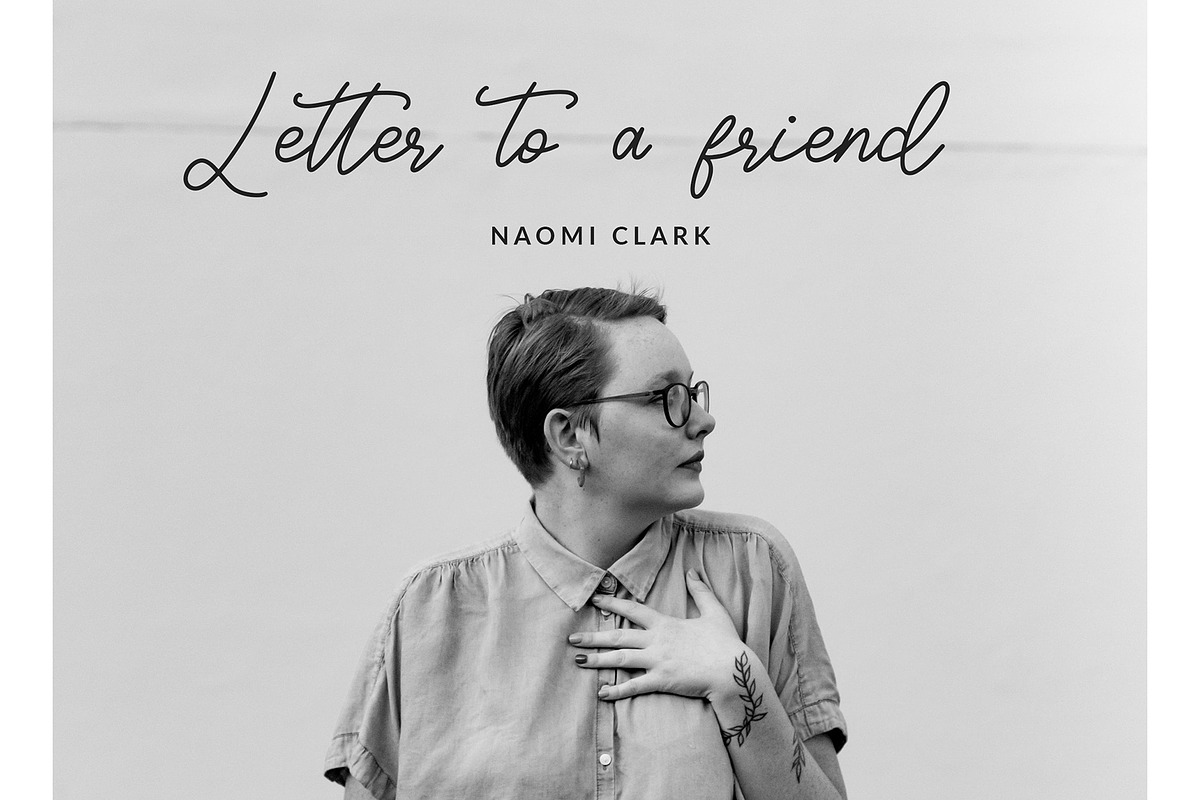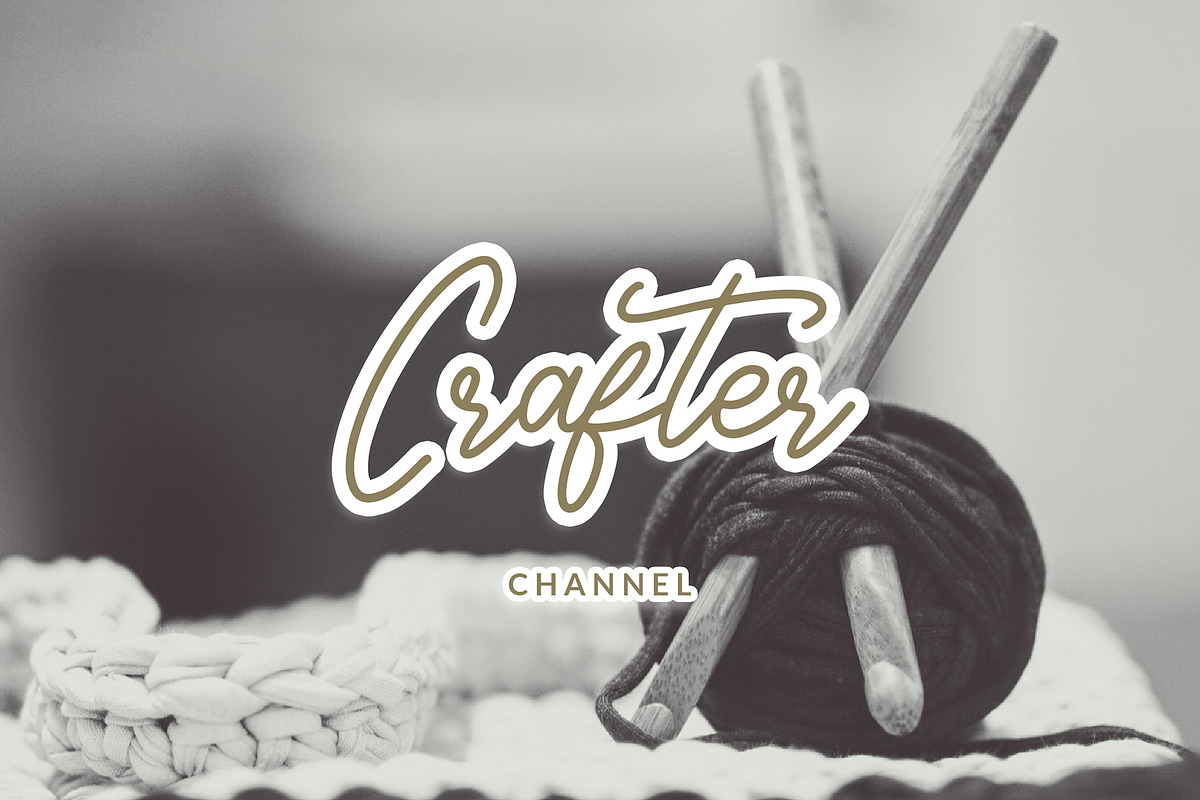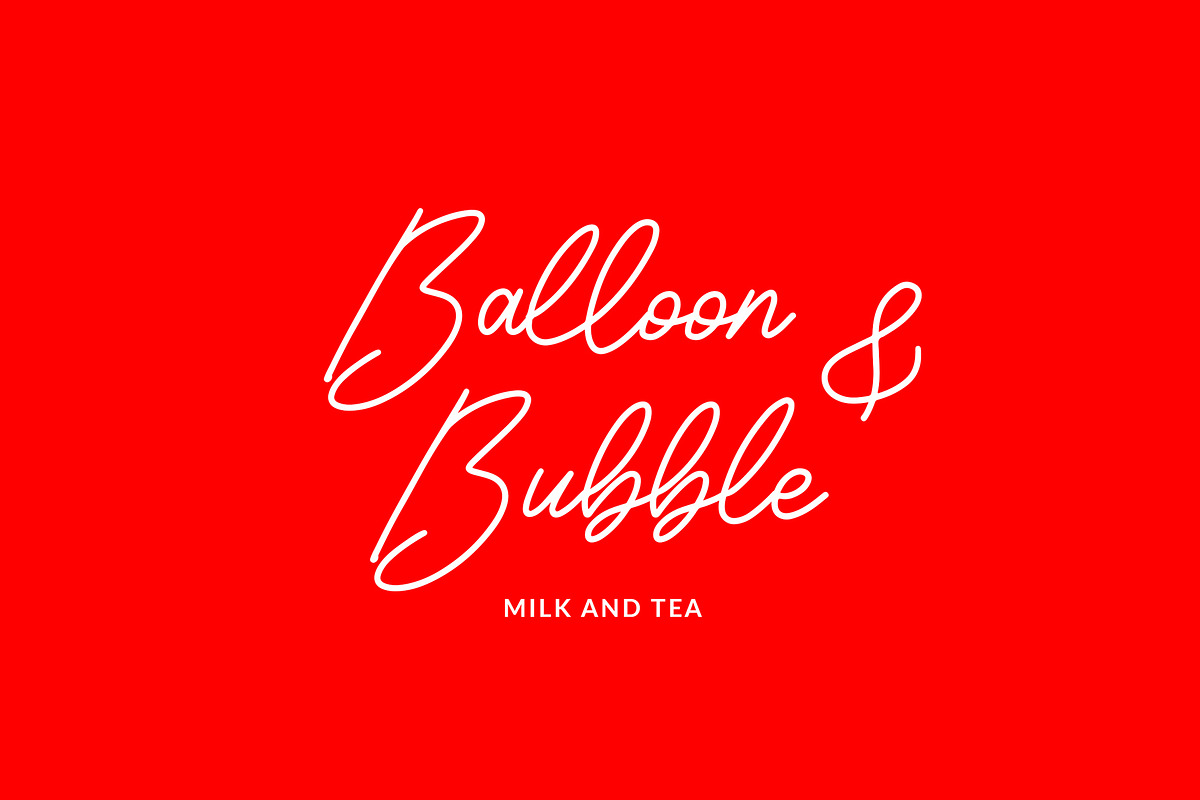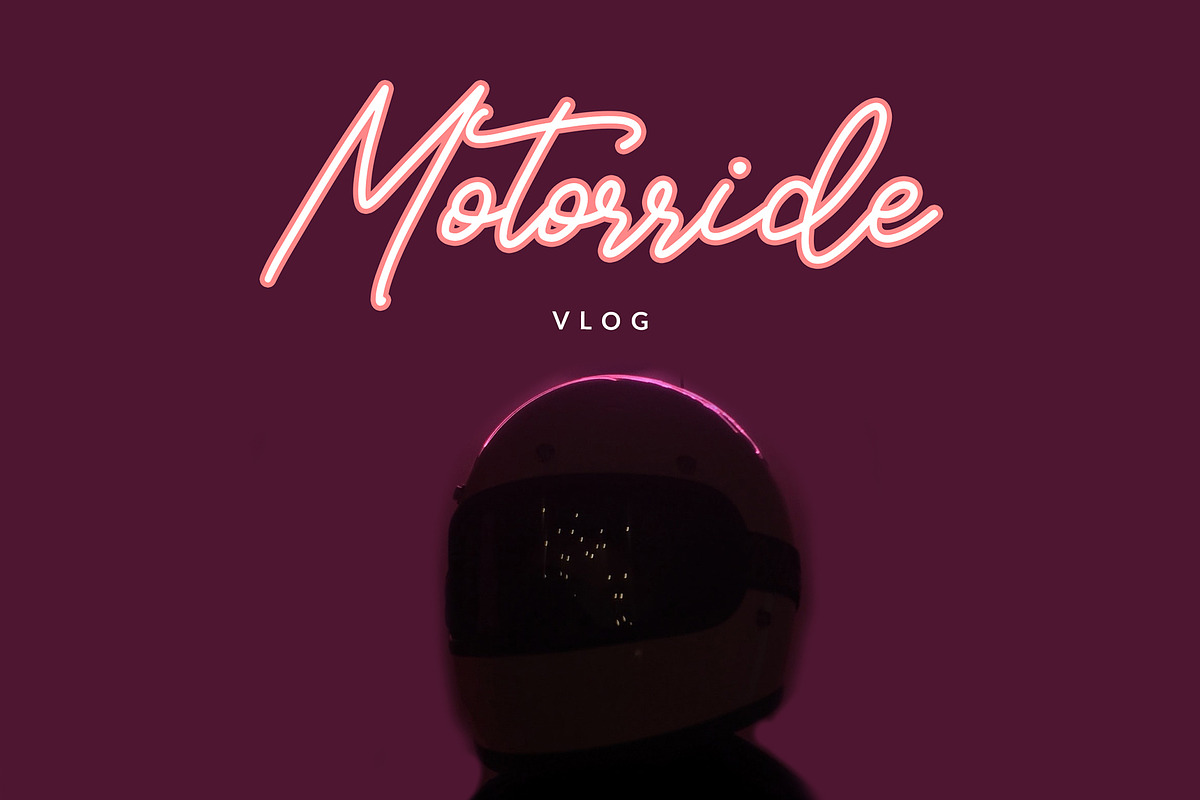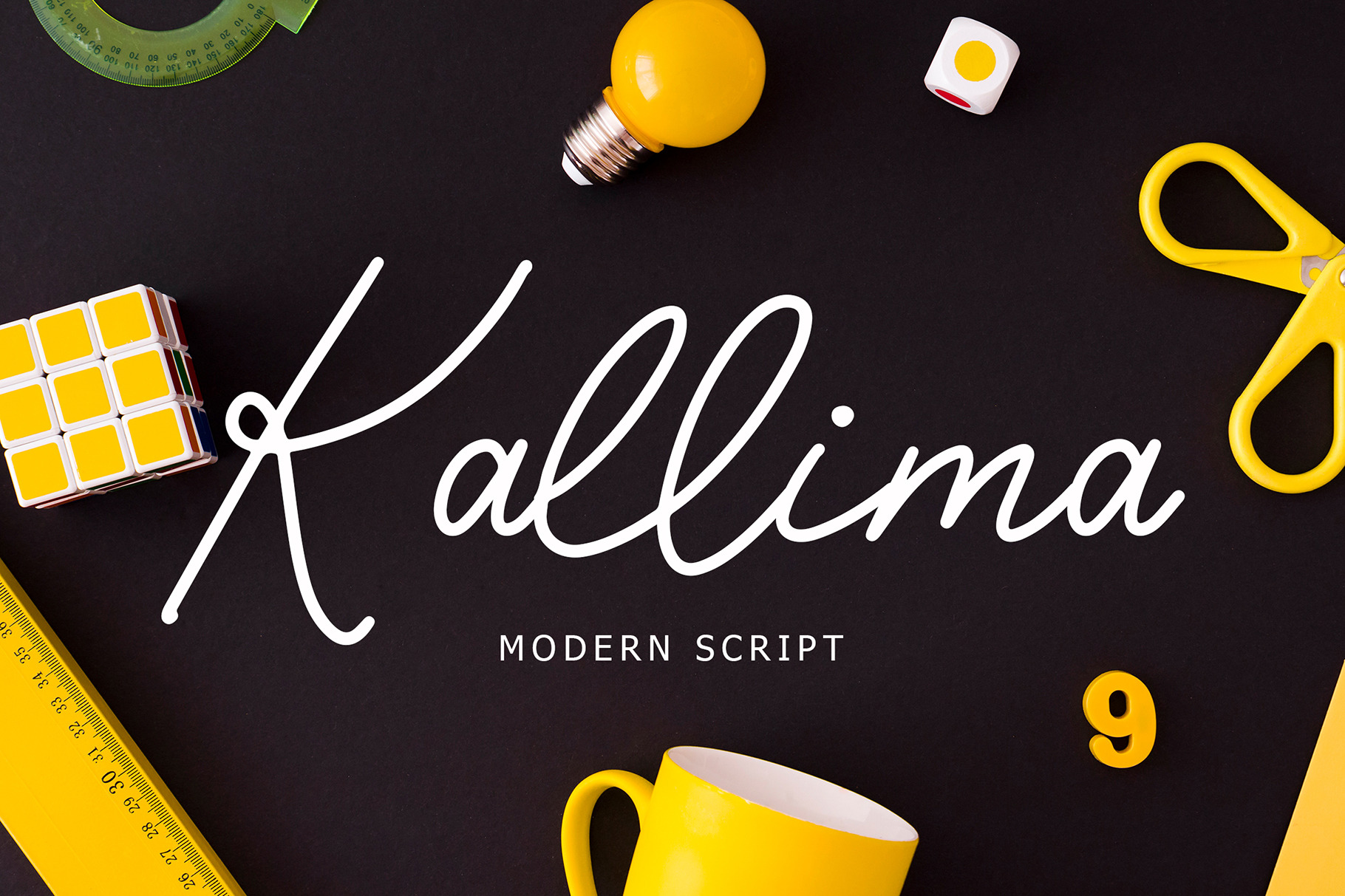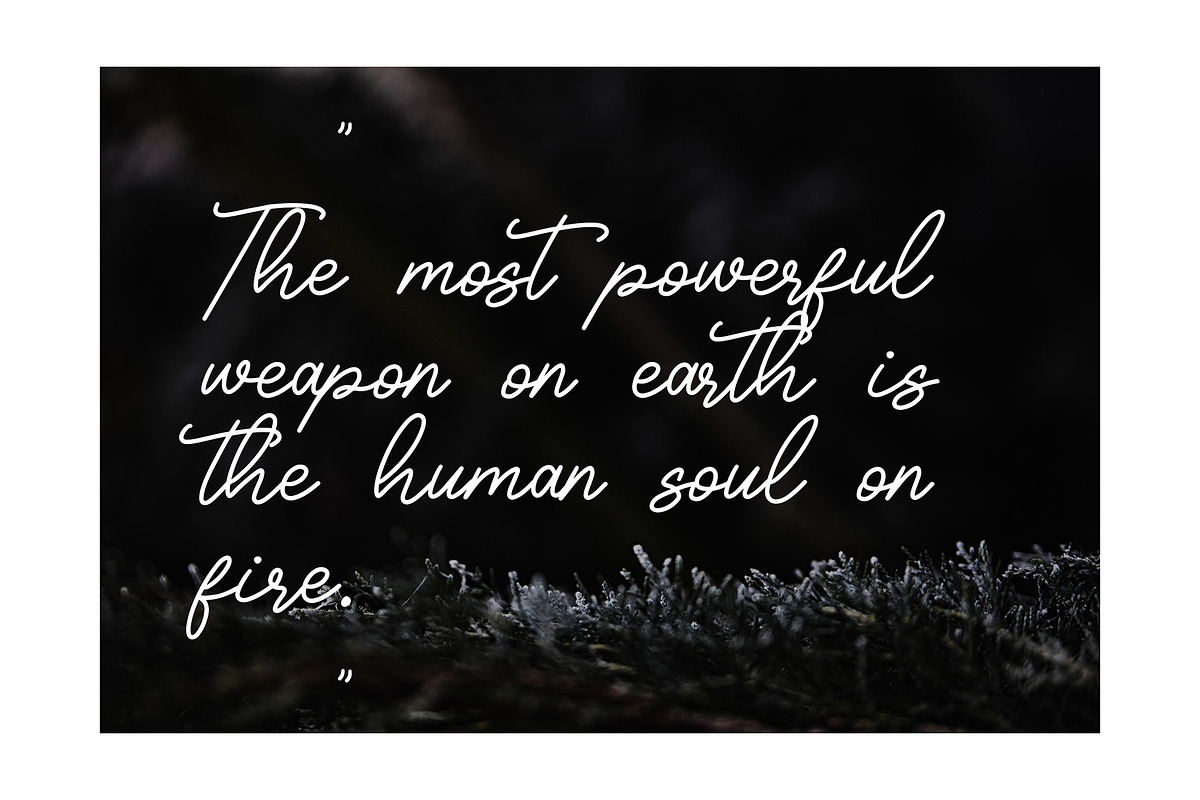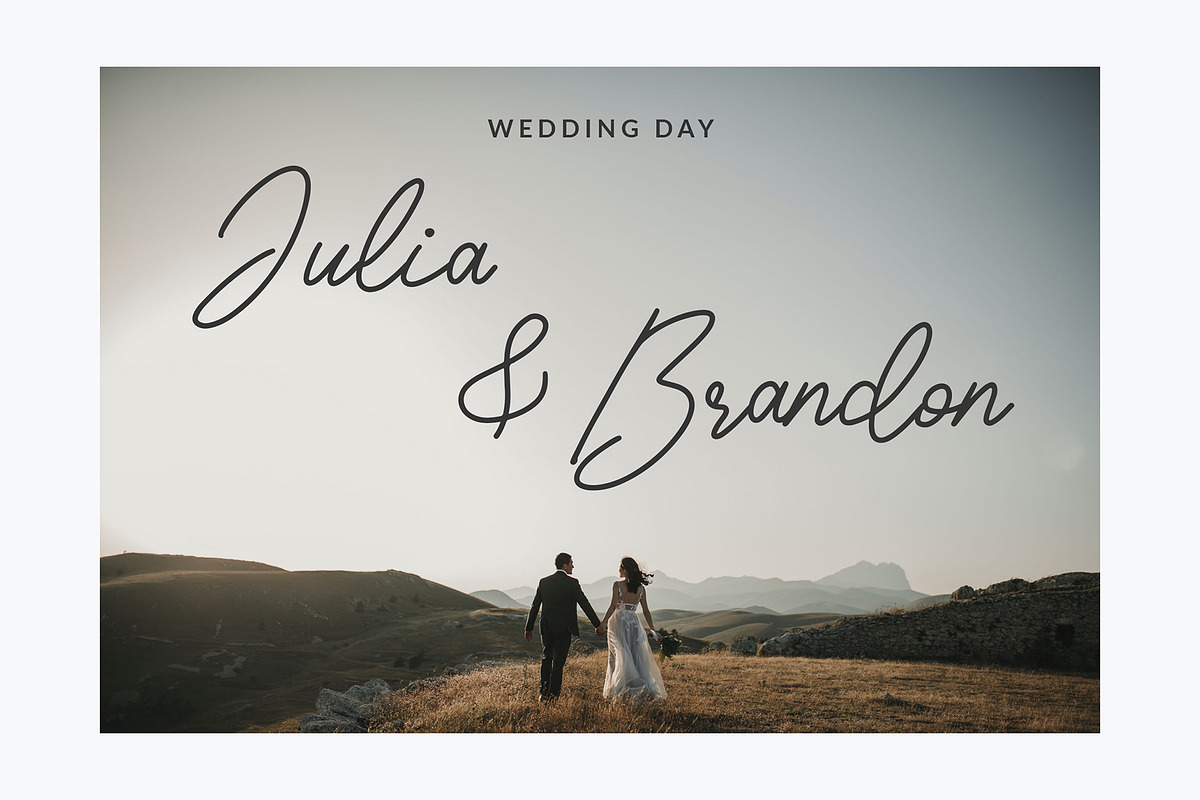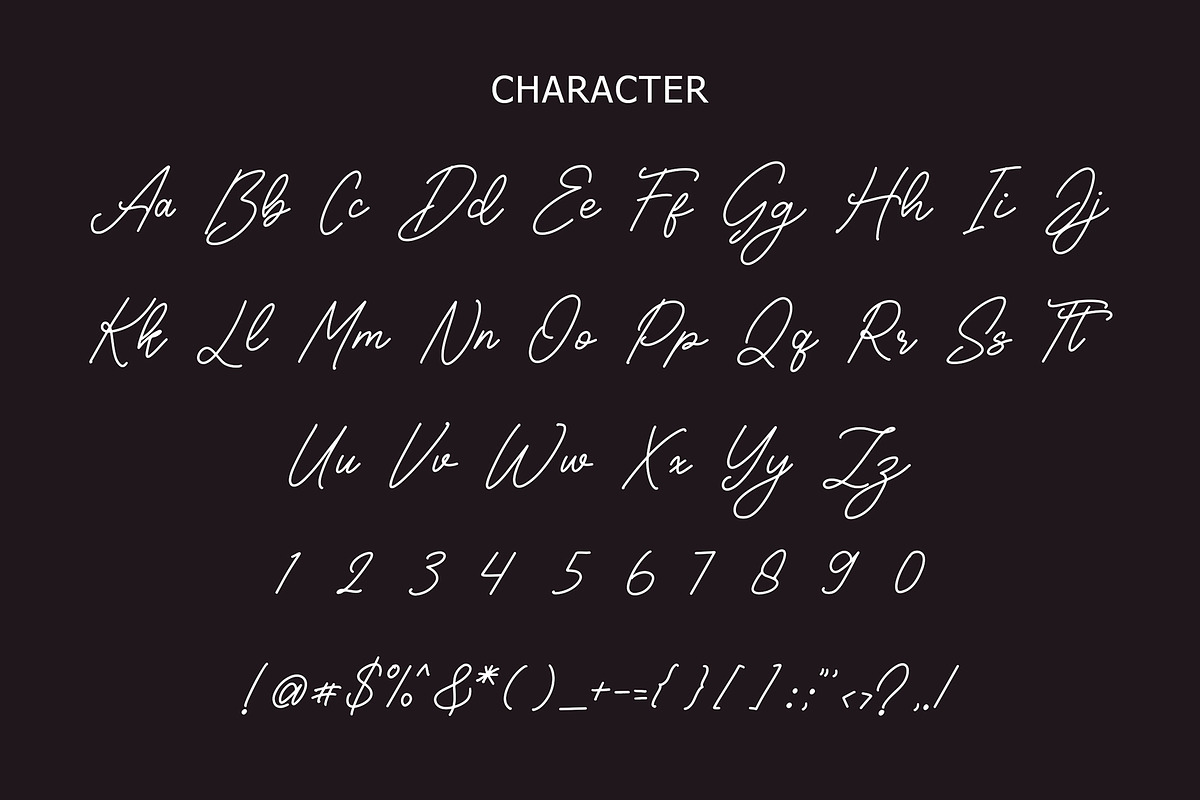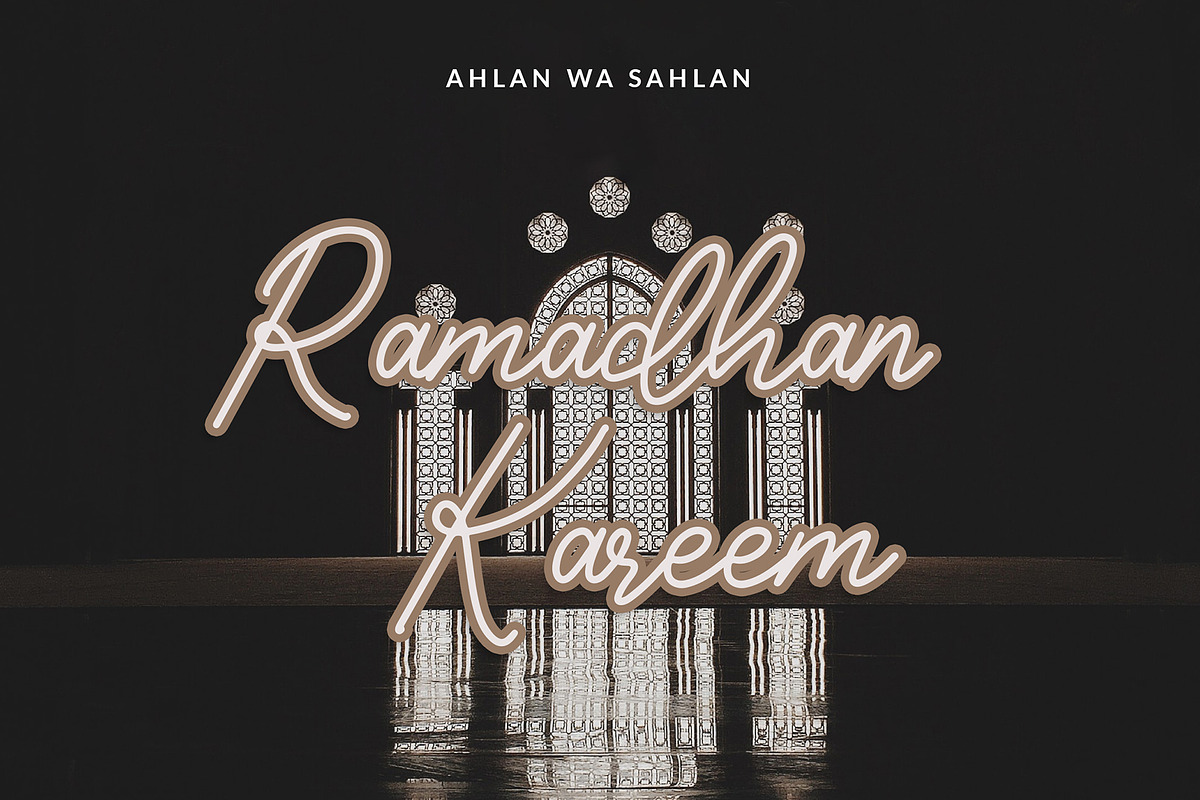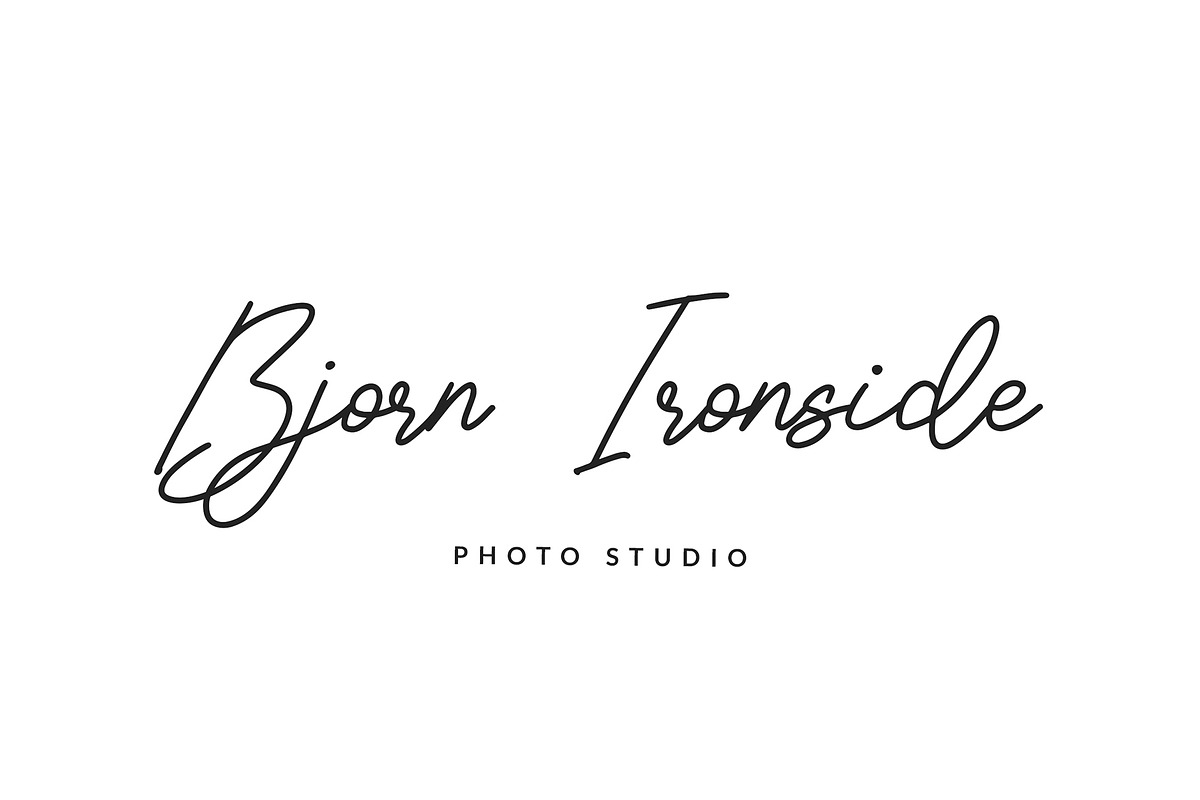
Kallima Modern Monoline Script Font
Kallima is an exciting calligraphy font with a monoline style. This is perfect for branding projects, logo, wedding designs, social media posts, advertisements, product packaging, product designs, label, photography, watermark, invitation, stationery, and any projects.